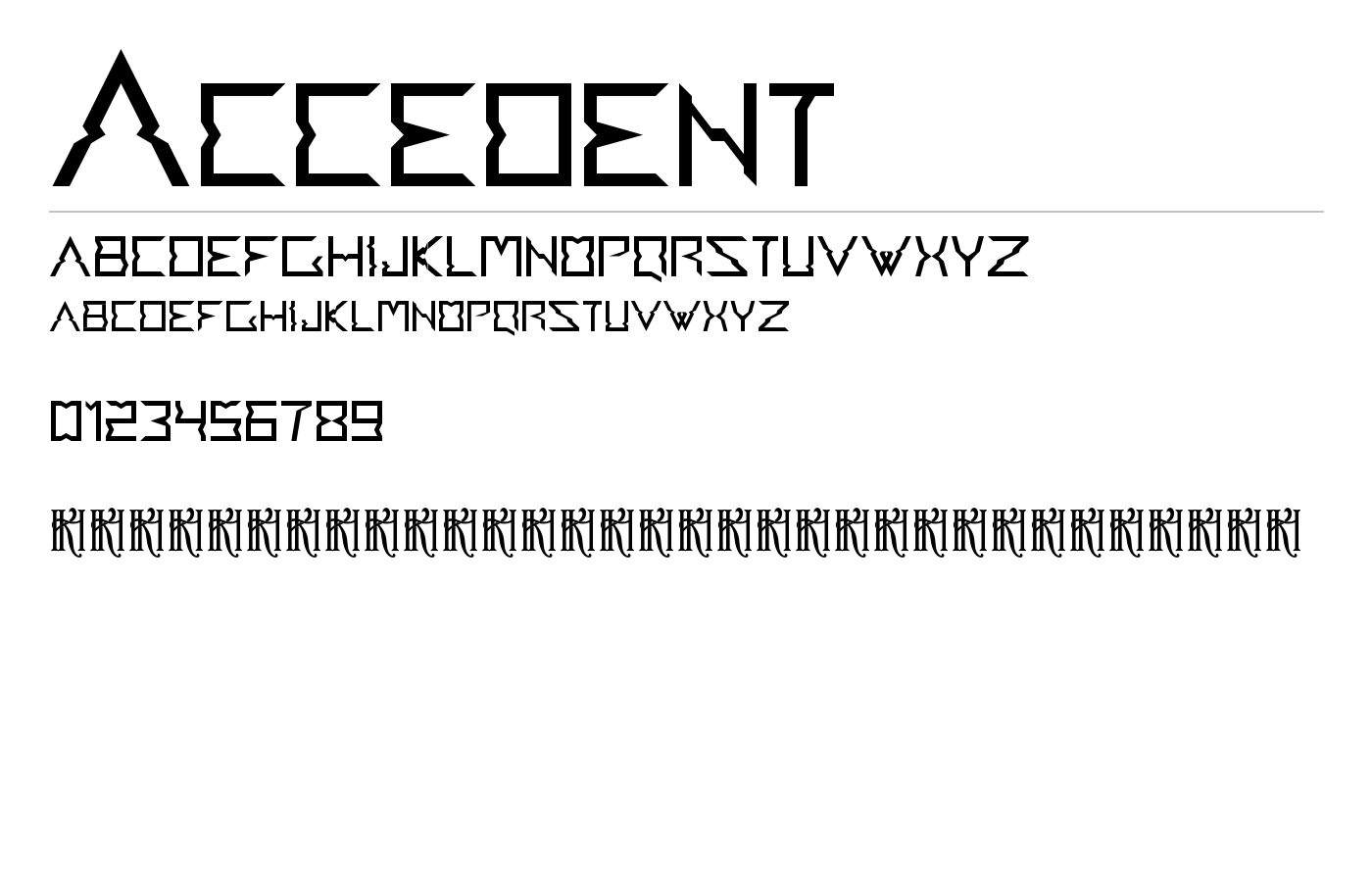
Accedent is a futuristic, geometric sans serif font with sharp angles and distinctive cut-out details that give it a tech-inspired, edgy feel. Its bold, condensed letterforms and consistent stroke weight make it ideal for striking headlines, logos, and graphic designs that need a modern, innovative look. This font works well in digital and sci-fi contexts where a bold statement and unique personality are desired.
Accedent Font
About Accedent Font